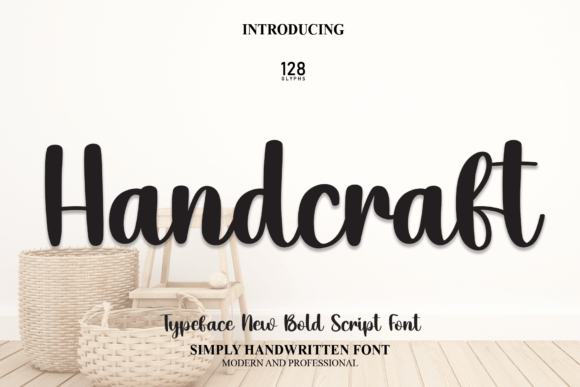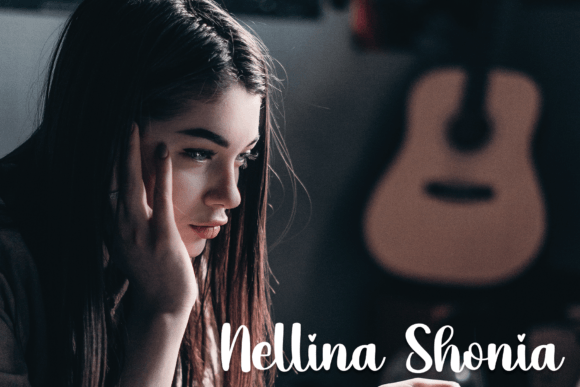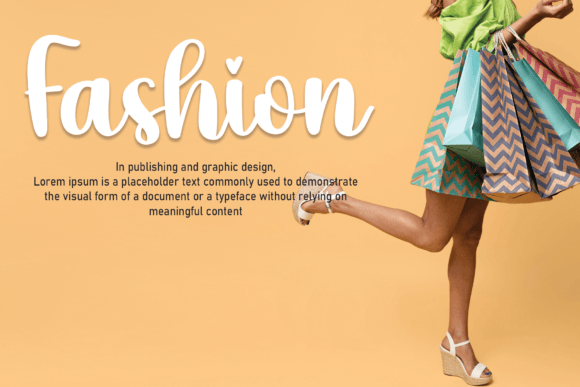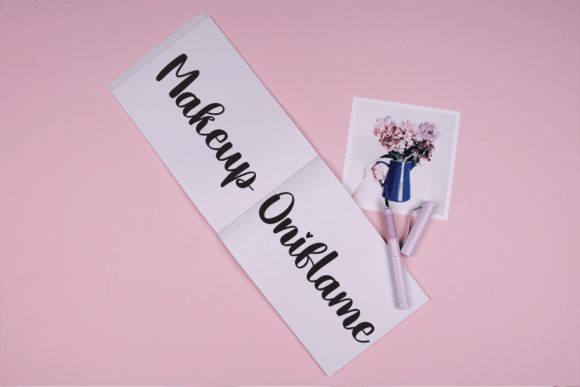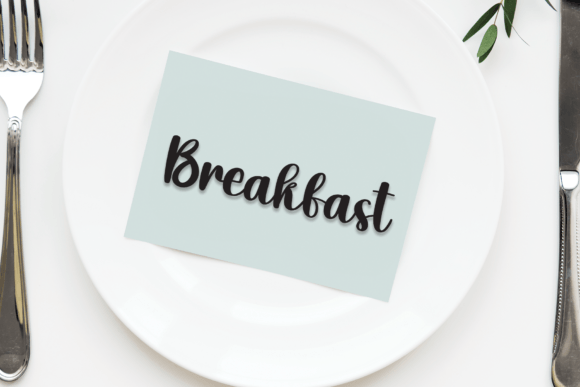
About Handcraft Font
Handcraft’s newest style letters are an ideal choice for a wide array of creative projects, adding a distinctive touch to wall displays, wedding invitations, social media post logos, advertisements, product packaging, product designs, labels, photography, watermarks, invitations, stationery, and any project that demands a handwritten aesthetic.
These style letters are crafted with precision and attention to detail, making them a versatile and charming option for various design needs. Whether you’re looking to create an eye-catching wall display or design elegant wedding invitations, Handcraft’s latest style letters bring a unique and personal flair to your projects.
The adaptability of these letters is evident in their suitability for social media post logos and advertisements. They lend a classy and modern feel, ensuring that your branding stands out with sophistication. When applied to product packaging and designs, Handcraft’s letters elevate the visual appeal, transforming ordinary products into distinctive works of art.
For labels and photography, the nuanced strokes and design elements of Handcraft’s style letters add a timeless charm. They seamlessly integrate into watermarks, providing a signature touch that enhances the authenticity of your images. When it comes to invitations and stationery, these letters bring warmth and individuality, making each piece feel personal and inviting.
In summary, Handcraft’s latest style letters are a go-to choice for anyone seeking a handwritten taste in their projects. Their versatility spans across wall displays, wedding invitations, social media logos, advertisements, product packaging, designs, labels, photography, watermarks, invitations, stationery, and beyond. Elevate your creative endeavors with the unique charm and sophistication that Handcraft’s style letters bring to every project.